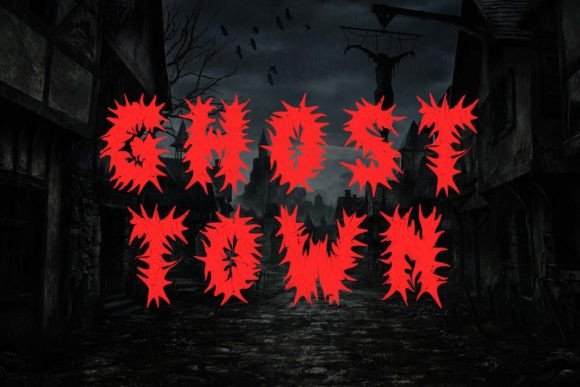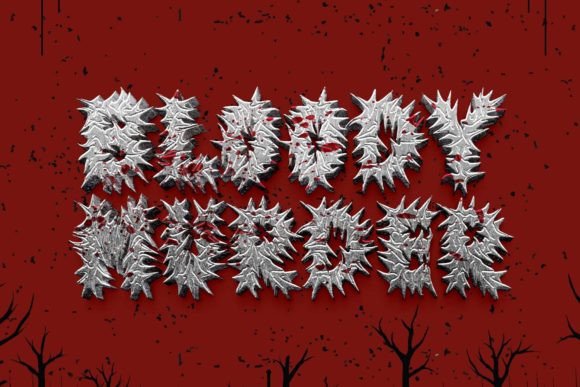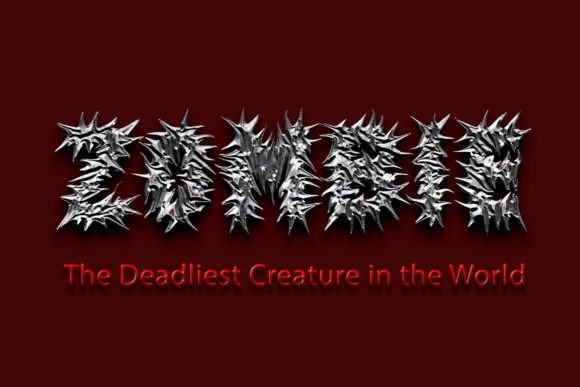
Introduction to Death Prison Font
β€œDeath Prison” is a special edition font with a unique horror theme with thorns on each letter.
Equipped with uppercase letters, lowercase letters, numerals, punctuations and multilingual support Very suitable for film titles, book covers, metal concerts, horror, spooky, Halloween and others.
Key Features of Death Prison Font